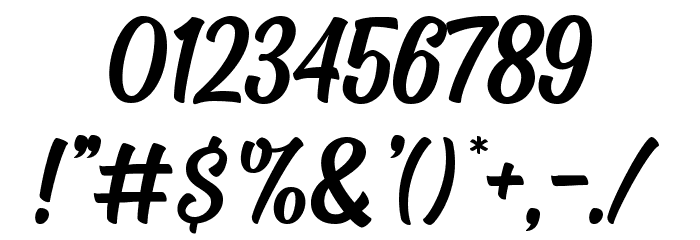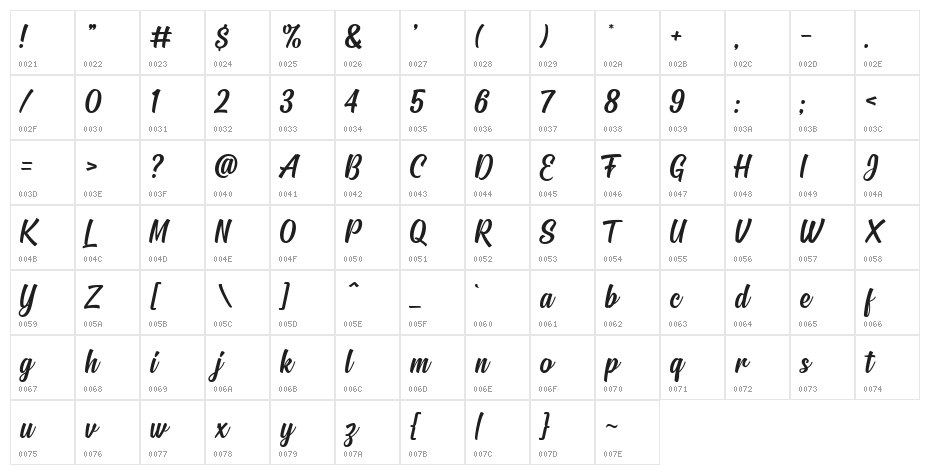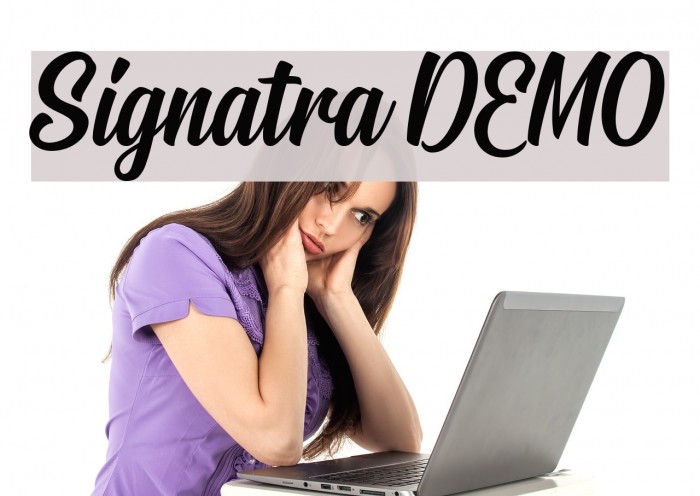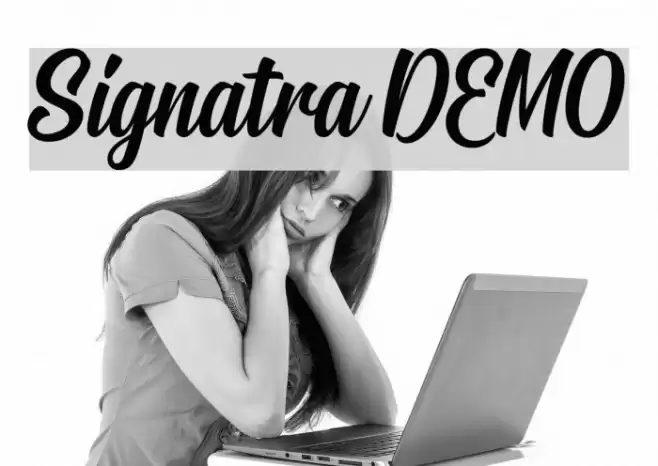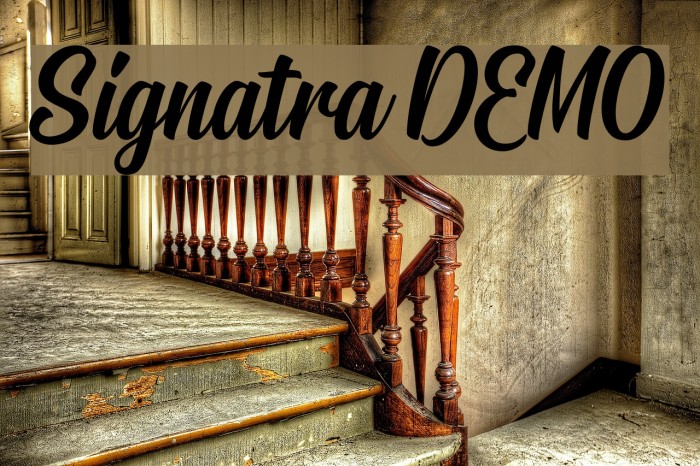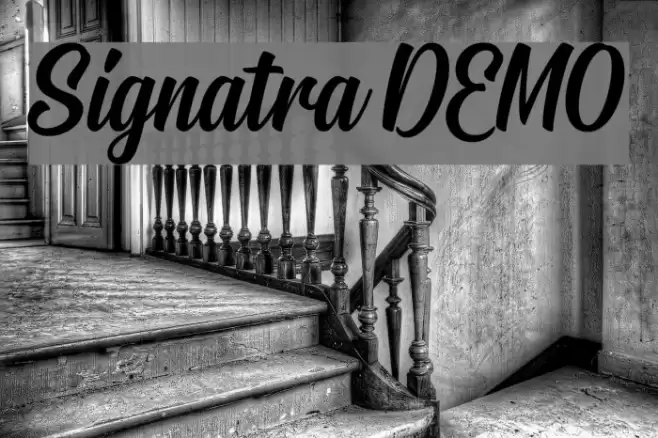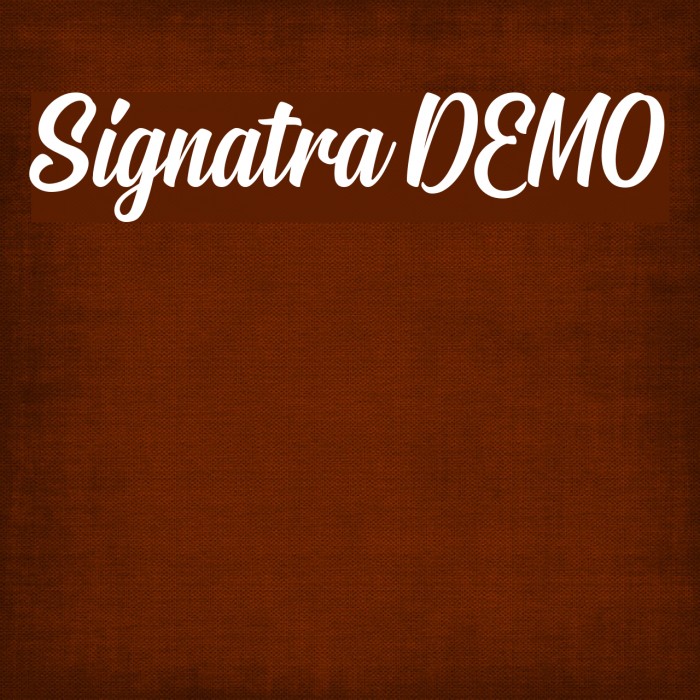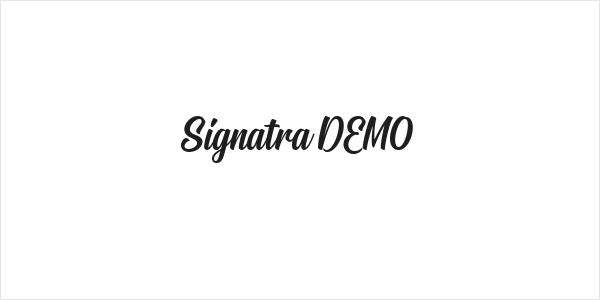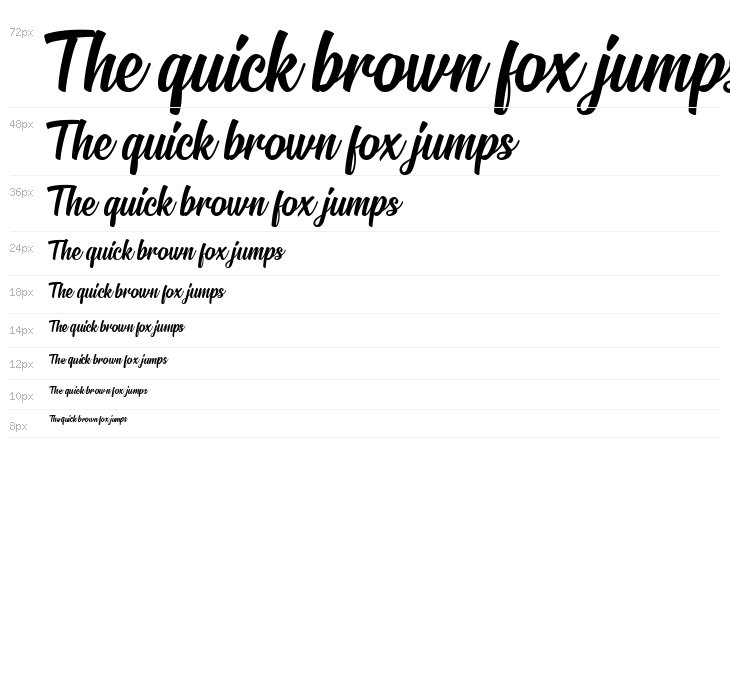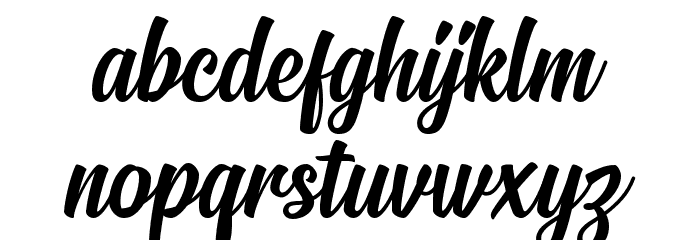
Signatra DEMO Font
Signatra DEMO Description
This font exudes a dynamic and energetic feel with its bold, flowing script style. The characters are designed with a slight slant, giving them a sense of motion and fluidity. Each letter is crafted with a consistent stroke width, contributing to a harmonious and balanced appearance. The uppercase letters are bold and prominent, while the lowercase letters maintain a graceful and elegant form. The numerals and special characters complement the overall style, ensuring versatility in various design contexts. This font is ideal for projects that require a touch of elegance and flair.
Use CaseLogos, Headlines, Invitations
Proposed ProjectsIdeal for branding, invitations, greeting cards, and logos.